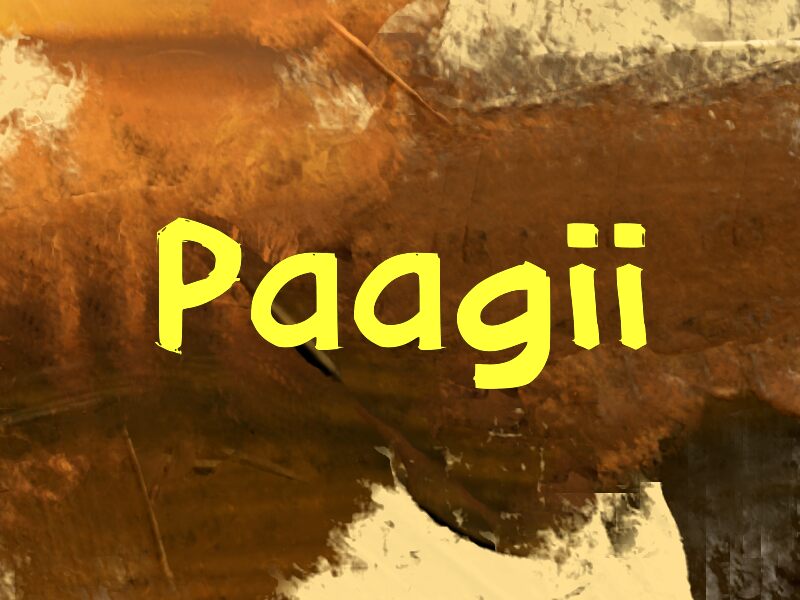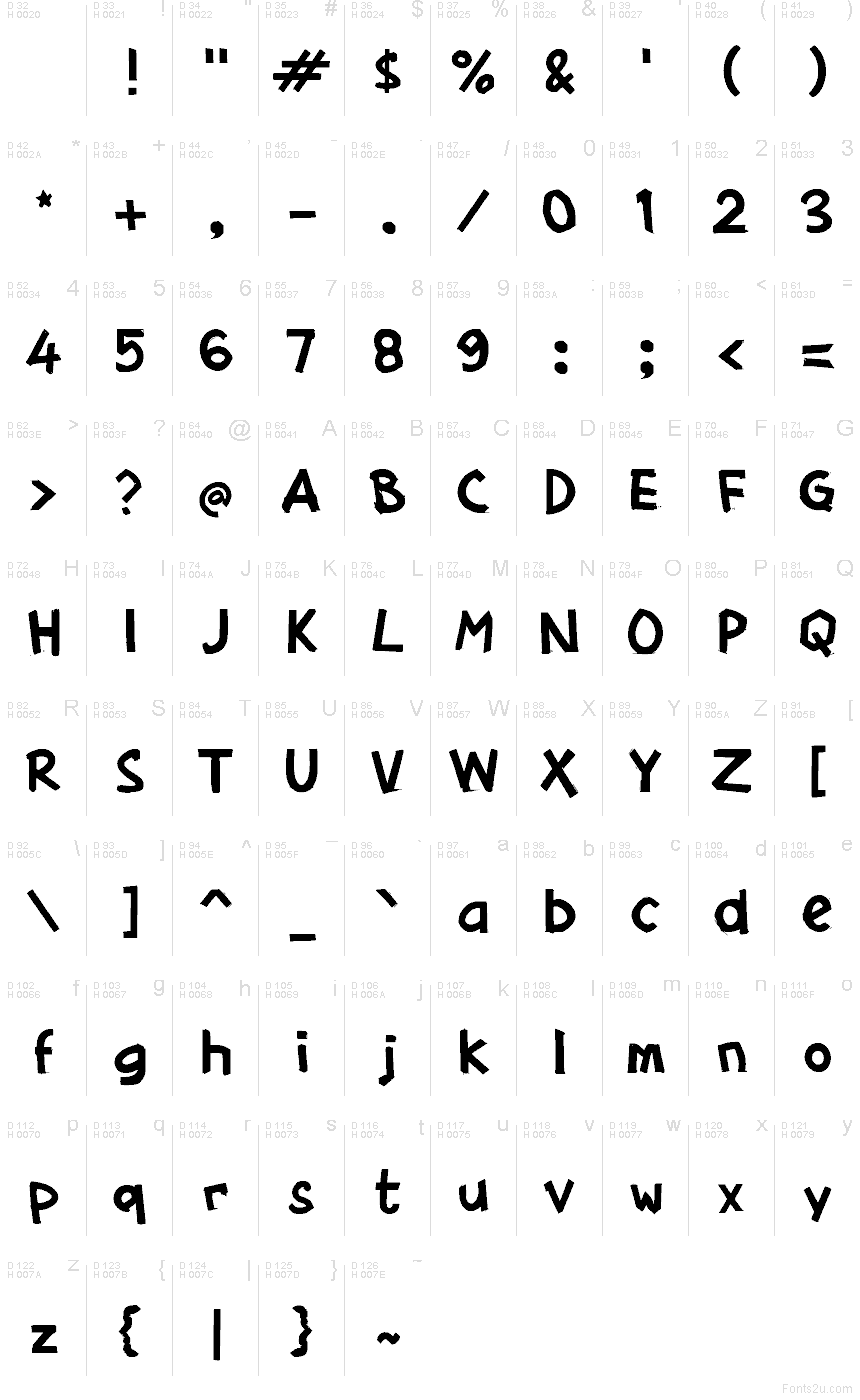
Paagii
Paagii font by wep is a free brush typeface with a bold, inky personality and a friendly, hand-painted wobble in every stroke. The chunky forms feel like they were drawn with a broad marker on slightly textured paper, giving each letter a soft, imperfect edge that reads as warm rather than messy. Rounded counters and gently tilted stems keep the rhythm bouncy and approachable, so text feels spoken, not printed.
Using Paagii, headlines and short phrases jump off the page with an easy, human charm that works beautifully for kids’ branding, casual posters, handmade product labels, YouTube thumbnails, event flyers, and social media graphics. This free font shines at larger sizes where its brush texture can breathe; pair it with a clean, simple sans serif for body copy to keep layouts readable and balanced.